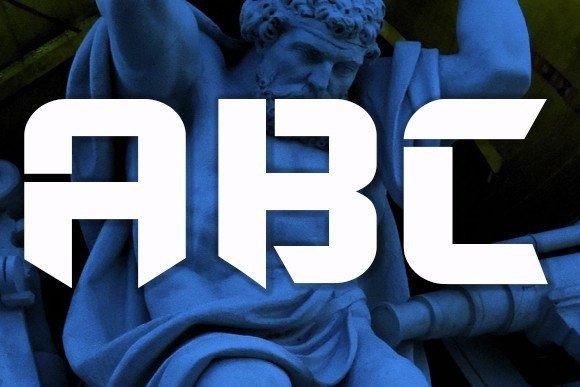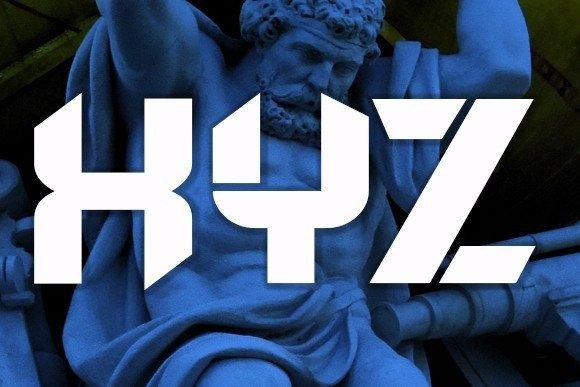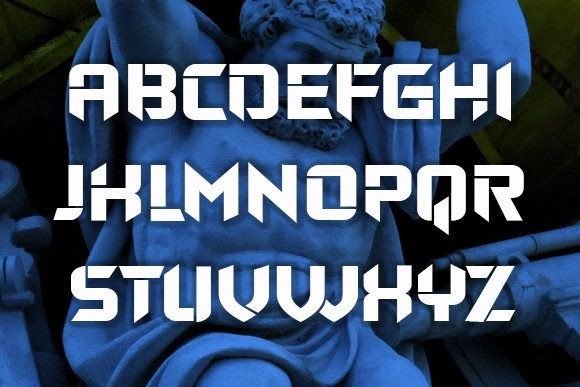
Unlock Your Creative Potential with Atlas Font
Have you ever been stuck in a creative rut, unable to find the perfect font to bring your project to life? You’re scrolling through font libraries, trying to find that elusive combination of style and sophistication, when suddenly – it hits you. The perfect font appears, and with it, a spark of inspiration that sets your imagination ablaze. For designers, this moment is all too familiar, and it’s exactly why the Atlas Font was created.
Designed to capture attention and inspire creativity, the Atlas Font is a sleek and modern display font that’s perfect for banners, headlines, and more. Its sharp, elegant lines make it a valuable tool for designers looking to elevate their work and stand out from the crowd. Whether you’re working on a bold campaign or a subtle branding project, the Atlas Font is sure to be a game-changer.
Atlas Font Key Features
- Font Family: Atlas is a sans-serif font family designed for digital use, available in multiple weights and styles.
- Character Set: Atlas supports a wide range of languages, including Latin, Cyrillic, Greek, and more, making it a versatile choice for global applications.
- Resolution: Atlas is designed to be highly legible at various resolutions, from low-resolution displays to high-resolution printing, ensuring clear readability in different environments.
- Size: Atlas is available in 8 different weights, ranging from Thin to Extra Bold, allowing designers to choose the perfect weight for their project.
- Unique Characteristics: Atlas features a distinctive, modern design with a strong emphasis on legibility, making it an excellent choice for digital products, such as apps, websites, and software interfaces.
Atlas Font Review
As a designer, I’ve had the chance to work with the Atlas Font, and I must say it’s a solid addition to any font library. Here are some of its highlights:
- ✨ High-quality typography: Atlas Font boasts beautiful, detailed lettering that’s perfect for headings and titles.
- ✨ Versatility: It comes in a range of weights, from light to bold, making it suitable for a variety of design applications.
- ✨ Elegant feel: The font’s sleek, modern aesthetic lends itself well to contemporary designs.
However, as with any font, there are some limitations:
- ⚠️ Limited legibility: In smaller text sizes, Atlas Font can be difficult to read, especially for those with vision impairments.
- ⚠️ Not ideal for body text: While it’s great for headings, the font’s design makes it less suitable for large blocks of text.
Overall, I think Atlas Font is a great choice for designers looking for a high-quality, modern font. While it may not be perfect for every project, its strengths far outweigh its limitations.
Atlas Font is ideal for:
- Infographics and data visualizations
- Business presentations and reports
Alternatives to Atlas Font for Designers
Montserrat is a sans-serif font that is great for digital designs, particularly for titles and headings. It is clean, modern, and highly legible. Montserrat is a good alternative to Atlas Font for designers who want a more contemporary look.
Comparison: Montserrat is more geometric and modern compared to Atlas Font, which has a more traditional feel. Montserrat is also more versatile and can be used for a wide range of designs, from digital to print.
Playfair Display is an elegant and luxurious serif font that is perfect for high-end designs, such as luxury brands and fine art projects. It is great for titles and headings that need to make a statement.
Comparison: Playfair Display is more ornate and luxurious compared to Atlas Font, which has a more understated feel. Playfair Display is also more suitable for formal and sophisticated designs, while Atlas Font is more versatile.